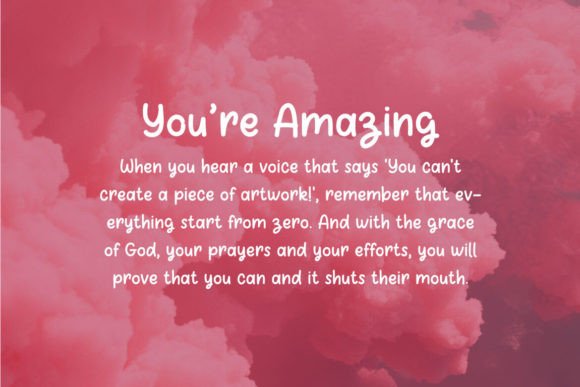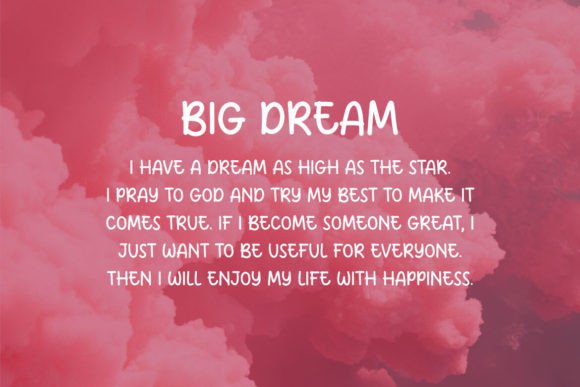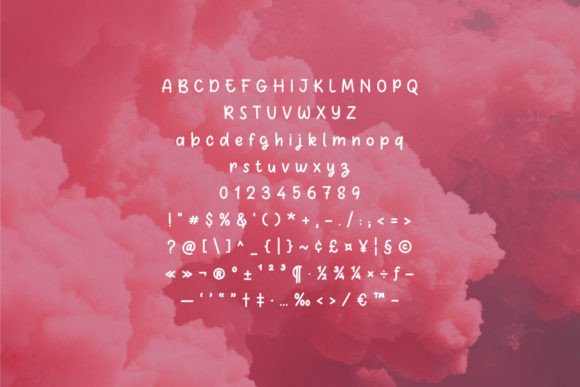
Introduction to Lucky Ribs Font
Have you ever stumbled upon the perfect font that makes your design project feel like a match made in heaven? For designers, finding that elusive combination of style, personality, and functionality can be a game-changer. That’s exactly what the Lucky Ribs Font offers – a delightful and playful font that’s sure to bring a burst of fun to any project.
Whether you’re working on a free download for social media or crafting a high-quality design resource for a client, the Lucky Ribs Font is a versatile choice that’s perfect for creative projects. Its simple, hand-drawn style gives it a transparent background that lets your design shine, making it a valuable addition to any designer’s toolkit.
With its clean and easy-to-read design, the Lucky Ribs Font is a must-have for designers looking to add a touch of whimsy and joy to their projects. In this article, we’ll delve into the world of this amazing font and explore its features, uses, and benefits – so you can bring your designs to life with the fun, simple font that makes every project feel like a celebration!
Key Features of Lucky Ribs Font
- Unique, hand-drawn design ideal for creative projects, adding a personal touch to any design resource.
- Features a large character set, including uppercase and lowercase letters, numbers, and punctuation marks, making it a versatile design resource.
- Perfect for designers, artists, and writers looking for a unique and creative font to enhance their design project.
Honest Review: Lucky Ribs Font
One of the standout features of the Lucky Ribs Font is its versatility. It comes with a transparent background, allowing you to easily integrate it into any design. The font’s unique style makes it perfect for projects that require a touch of whimsy and playfulness.
Here are some of the things that work well with the Lucky Ribs Font:
- Unique style and aesthetic ✨
- High-quality design ✨
- Limited font styles and weights ⚠️
- No comprehensive documentation or support ⚠️
Overall, I’m impressed with the Lucky Ribs Font. Its high-quality design and unique style make it a great addition to any designer’s toolkit. While it may not be perfect, it’s definitely worth considering for your next creative project.
The Lucky Ribs Font is perfect for a variety of creative projects, including:
- Logos and branding
- Presentation design
- Document design